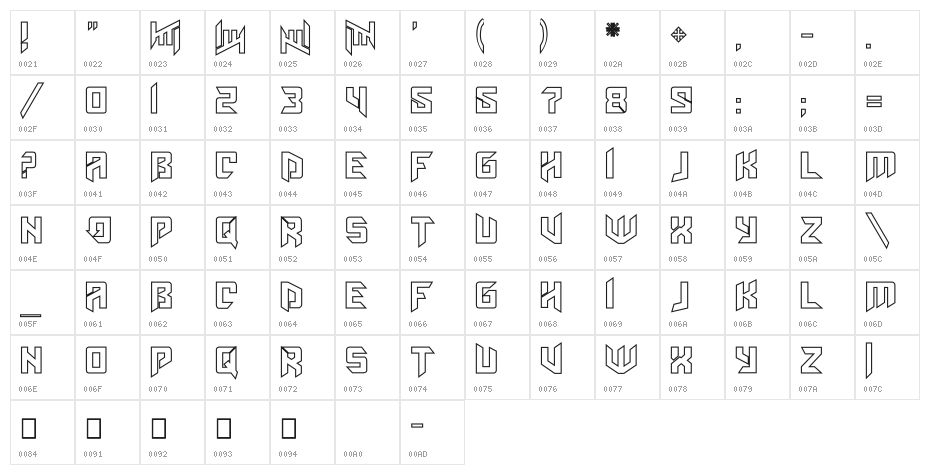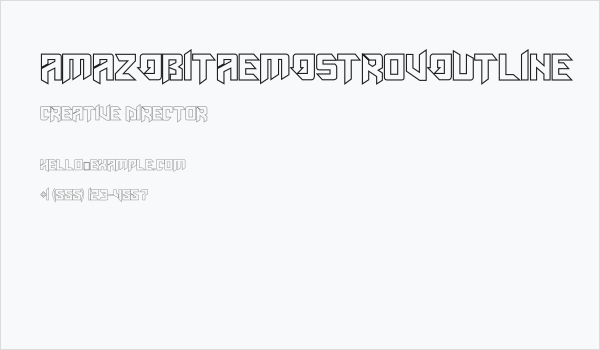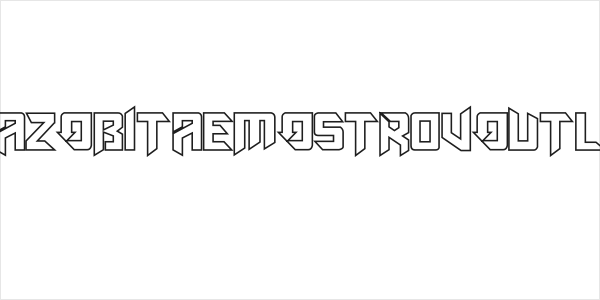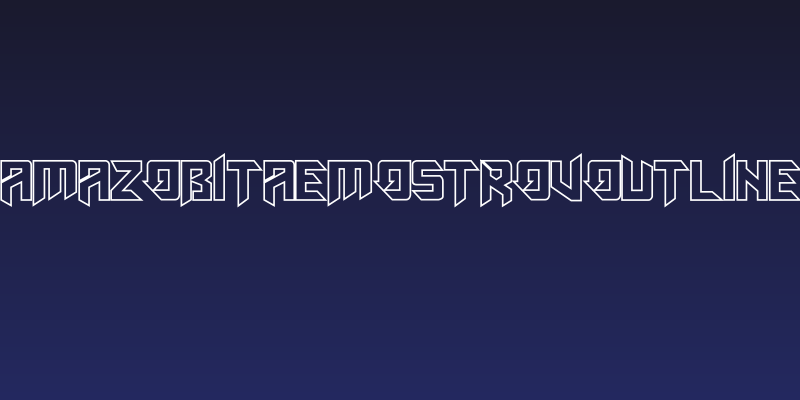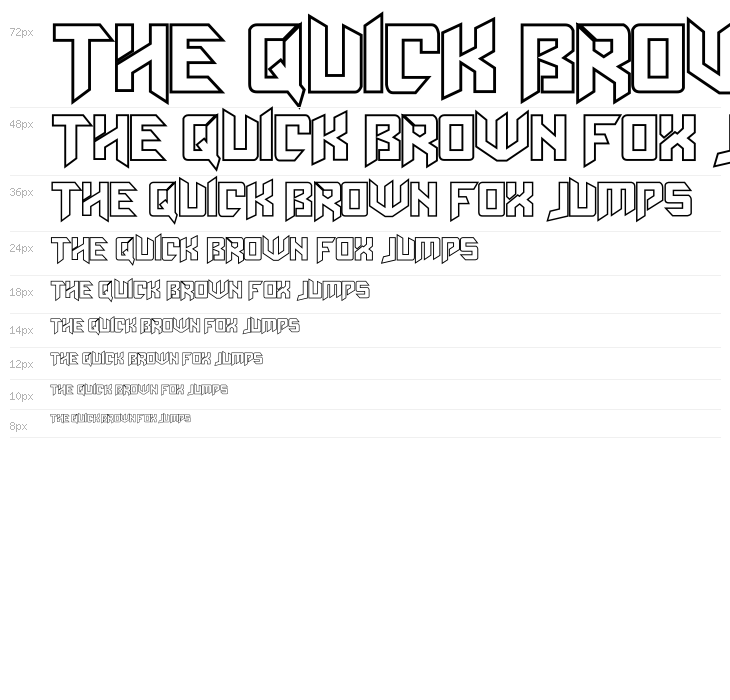
AmazObitaemOstrovOutline Font
AmazObitaemOstrovOutline Description
This font features a bold, geometric design with sharp angles and a futuristic aesthetic. The characters are outlined, giving them a hollow appearance that enhances their modern and edgy style. Each letter is crafted with precision, showcasing a unique blend of angular cuts and straight lines that create a dynamic visual impact. The font maintains a consistent height and width across all characters, ensuring uniformity and balance. The numbers and special characters follow the same design principles, making them cohesive with the alphabet. This font is ideal for projects that require a strong, standout typeface with a contemporary vibe.
| Proposed Projects | Ideal for sci-fi themed designs, video game titles, posters, and branding that requires a modern and bold statement. |